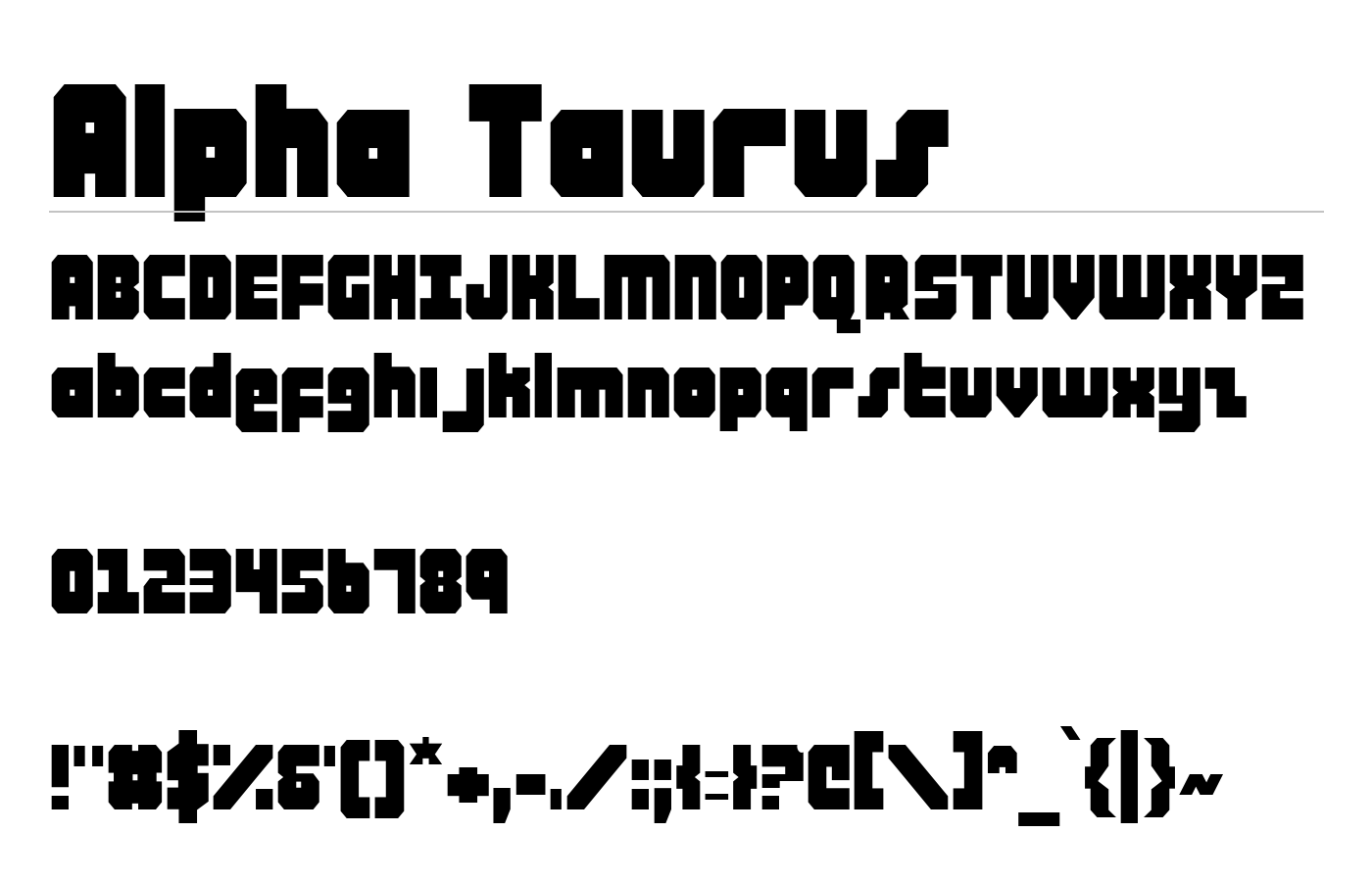
Alpha Taurus is a bold, blocky sans serif font with a strong geometric structure and sharp edges, giving it a futuristic and industrial feel. Its heavy weight and compact letterforms make it ideal for impactful headlines, logos, and branding that demand attention and a modern, tech-inspired vibe. This font works best where bold statements are needed, such as posters, game titles, or digital projects.
Alpha Taurus Font